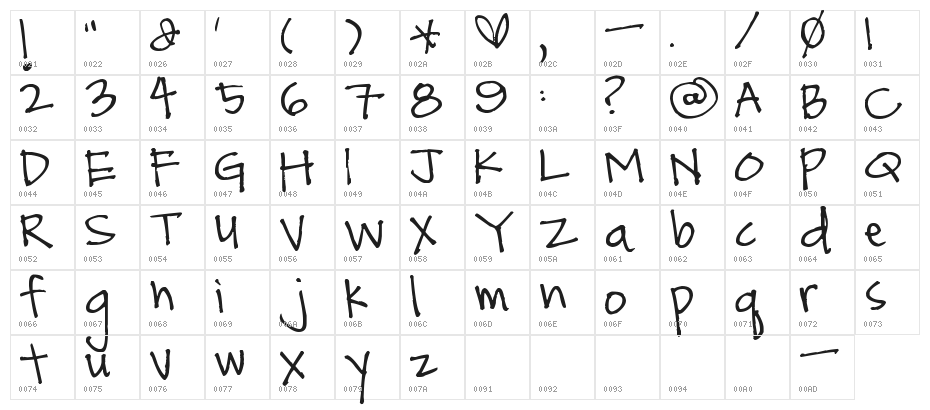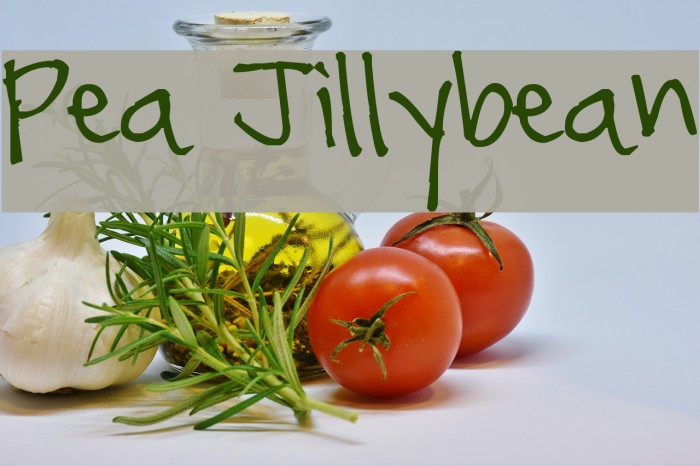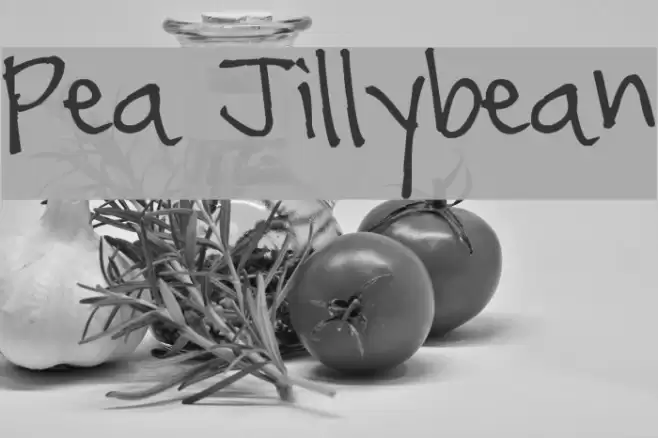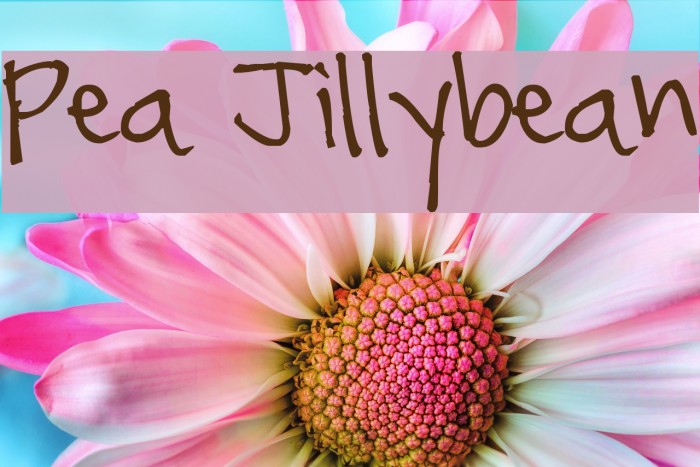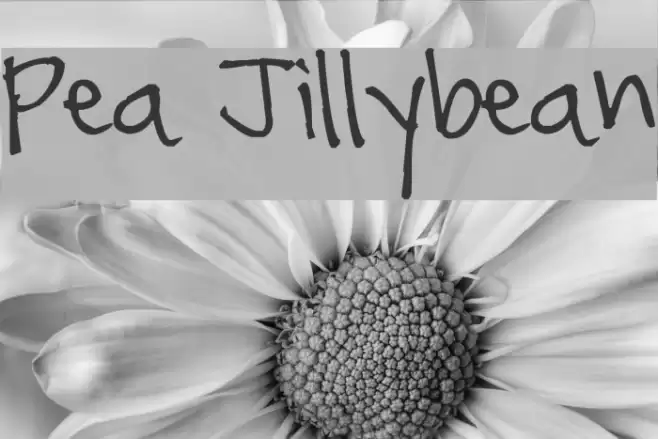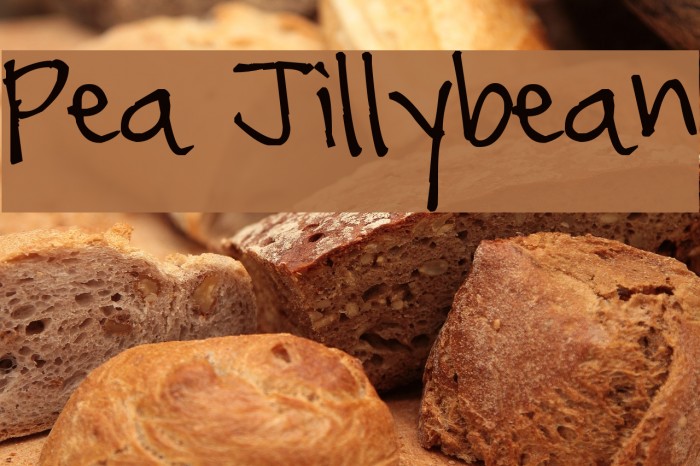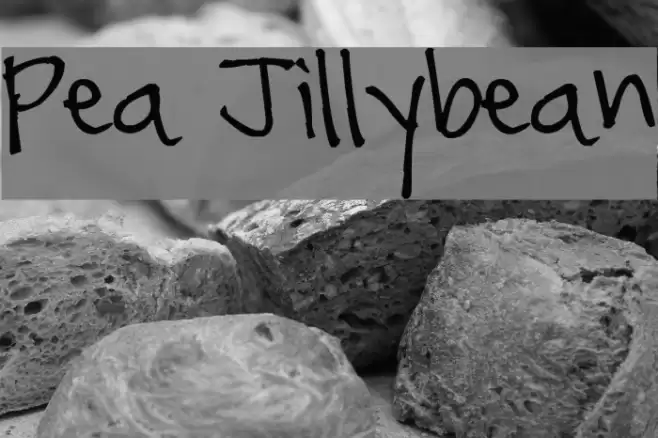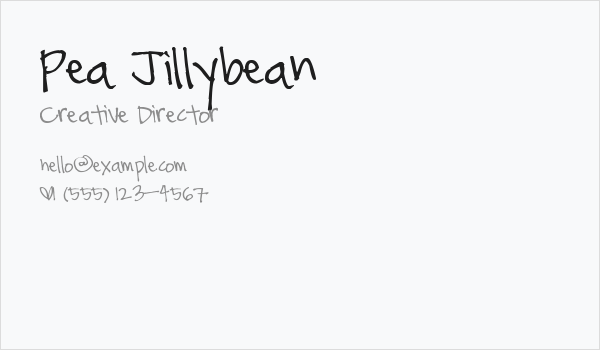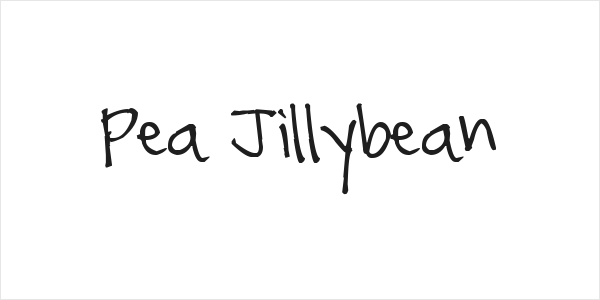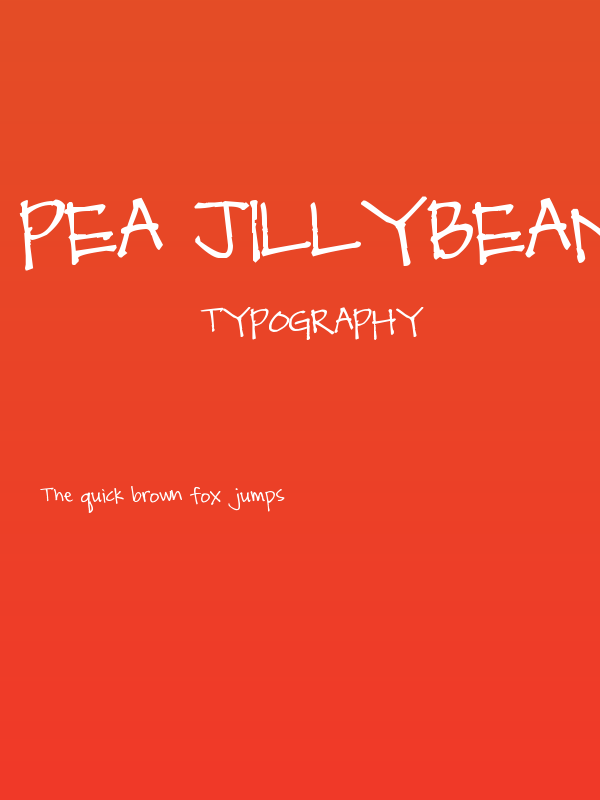
Pea Jillybean Font
Pea Jillybean Description
This font exudes a playful and casual handwritten style, characterized by its uneven strokes and slightly irregular letterforms. The letters have a spontaneous, free-flowing appearance, reminiscent of a personal note or a quick sketch. The uppercase and lowercase letters maintain a consistent style, with a slight tilt that adds to the informal charm. Numbers and special characters follow the same whimsical design, making the font versatile for creative projects. Its organic feel is perfect for conveying a sense of authenticity and warmth.
| Use Case | Logos, Greeting cards, Informal branding |
| Proposed Projects | Ideal for personal notes, greeting cards, children's books, and informal branding. |